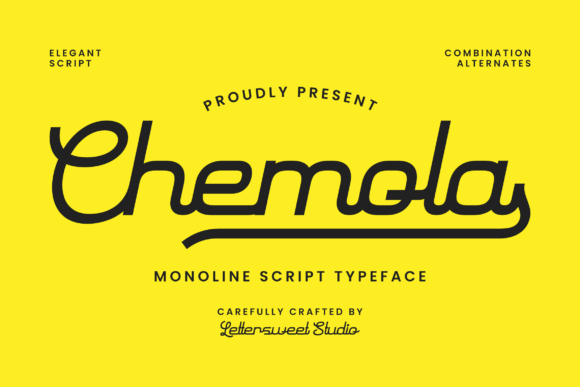
Chemola Font: A Smooth Monoline Script Typeface for Modern Designs
Introducing Chemola, a beautiful monoline script typeface that embodies the perfect blend of elegance and modernity. With its clean curves, rounded corners, and confident flow, Chemola is ideal for creating stunning designs that require a touch of sophistication and style.
What Makes Chemola Unique?
Chemola’s uniqueness lies in its exceptional design features, which set it apart from other script typefaces. Its easy connections, stylish swashes, and combination alternates allow designers to build custom wordmarks in seconds. This makes Chemola perfect for creating sporty badges, retro signage, café branding, packaging, and standout social posts.
One of the standout features of Chemola is its OpenType features, which include stylistic alternates and ligatures. These features enable designers to swap characters for a more natural handwriting feel, giving their designs a personal touch. The long underline swash adds an eye-catching finishing touch, making Chemola a versatile typeface for various design applications.
Key Features of Chemola Font
- Smooth Monoline Script: Chemola’s monoline script design ensures a smooth flow, making it perfect for creating elegant and modern designs.
- Clean Curves and Rounded Corners: The clean curves and rounded corners of Chemola give it a friendly and approachable feel, making it suitable for a wide range of design applications.
- Easy Connections and Stylish Swashes: Chemola’s easy connections and stylish swashes enable designers to create custom wordmarks quickly and easily.
- OpenType Features: Chemola’s OpenType features, including stylistic alternates and ligatures, allow designers to add a personal touch to their designs.
- Long Underline Swash: The long underline swash adds a finishing touch to designs, making them more visually appealing.
Use Cases for Chemola Font
Chemola is a versatile typeface that can be used in various design applications, including:
- Logos and Branding: Chemola’s elegant and modern design makes it perfect for creating logos and branding materials that require a touch of sophistication.
- Headlines and Titles: Chemola’s smooth monoline script design makes it ideal for creating headlines and titles that require a clean and elegant look.
- Merchandise and Packaging: Chemola’s stylish swashes and combination alternates make it perfect for creating custom merchandise and packaging designs.
- Labels and Quotes: Chemola’s elegant design makes it suitable for creating labels and quotes that require a touch of sophistication.
- Social Media Posts: Chemola’s modern design makes it perfect for creating standout social media posts that require a touch of elegance.
Tips for Using Chemola Font
To get the most out of Chemola, here are some tips for using the typeface:
- Experiment with Stylistic Alternates and Ligatures: Chemola’s OpenType features allow designers to add a personal touch to their designs. Experiment with different stylistic alternates and ligatures to find the perfect look for your design.
- Use the Long Underline Swash: The long underline swash adds a finishing touch to designs. Use it to add a touch of elegance to your designs.
- Combine Chemola with Other Typefaces: Chemola can be paired with other typefaces to create a unique look. Experiment with different combinations to find the perfect pairing for your design.
Chemola is a beautiful monoline script typeface that embodies the perfect blend of elegance and modernity. With its clean curves, rounded corners, and confident flow, Chemola is ideal for creating stunning designs that require a touch of sophistication and style. Its exceptional design features, including easy connections, stylish swashes, and combination alternates, make it perfect for creating custom wordmarks and designs. Whether you’re creating logos, headlines, merchandise, or social media posts, Chemola is a versatile typeface that can help you achieve your design goals.